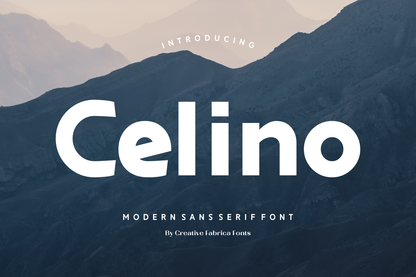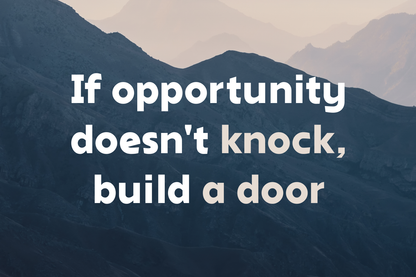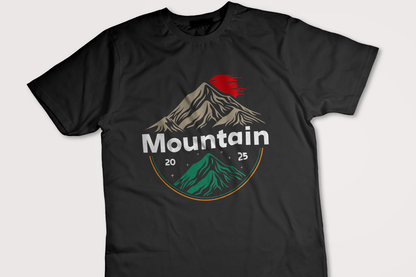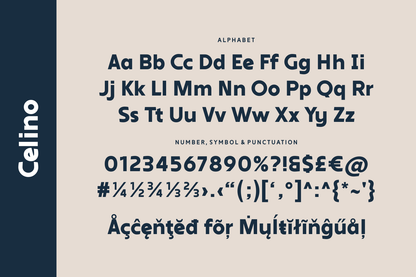
Celino is a bold and clean sans serif font with a confident, modern presence. With its strong geometry and smooth curves, it’s a great fit for branding, posters, tech products, and website headers looking for a timeless, sleek look.